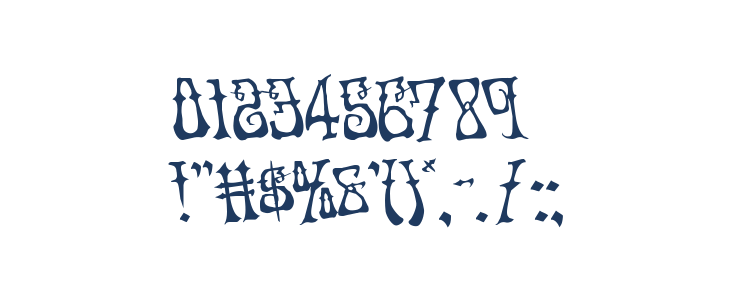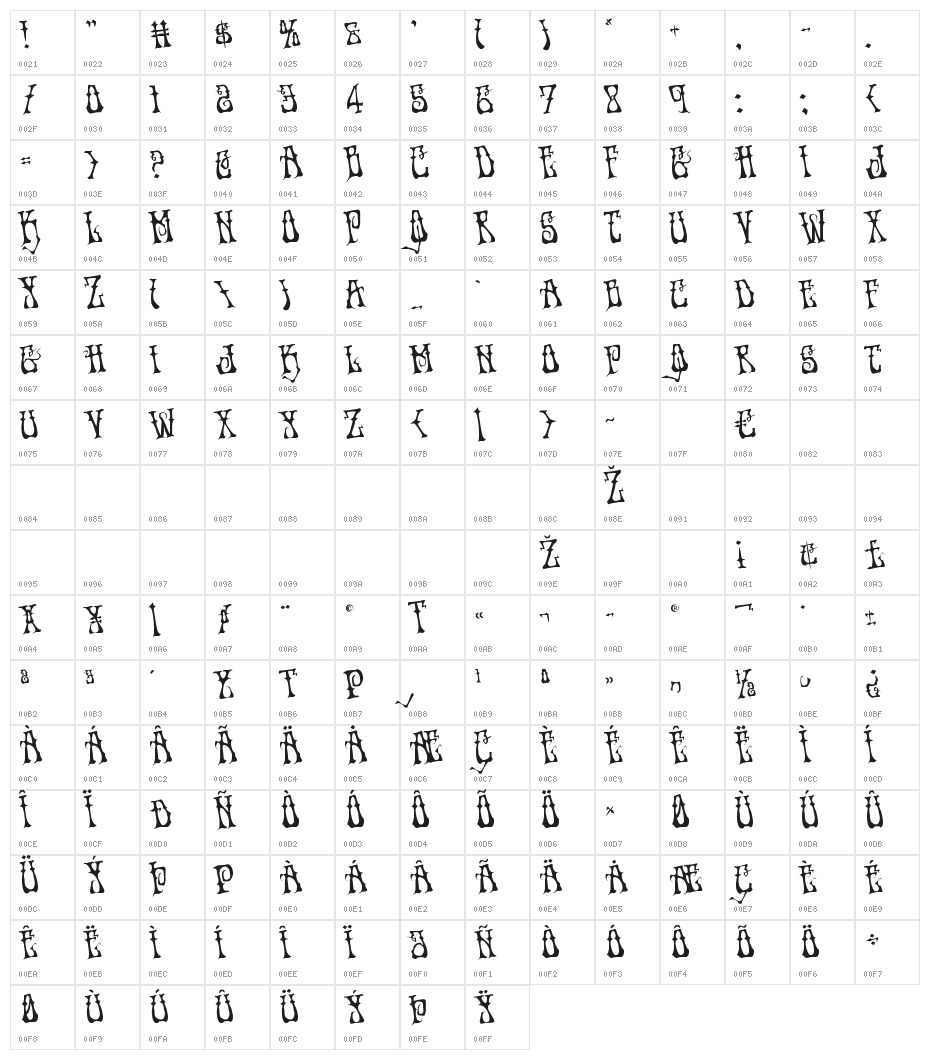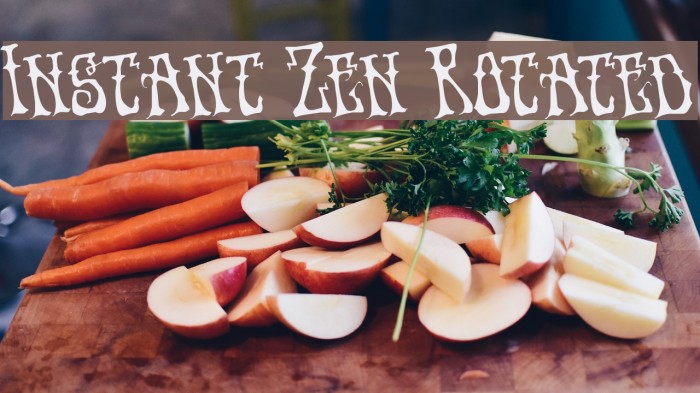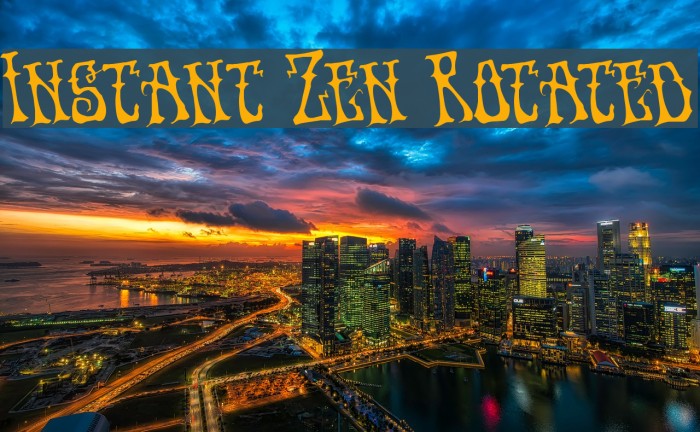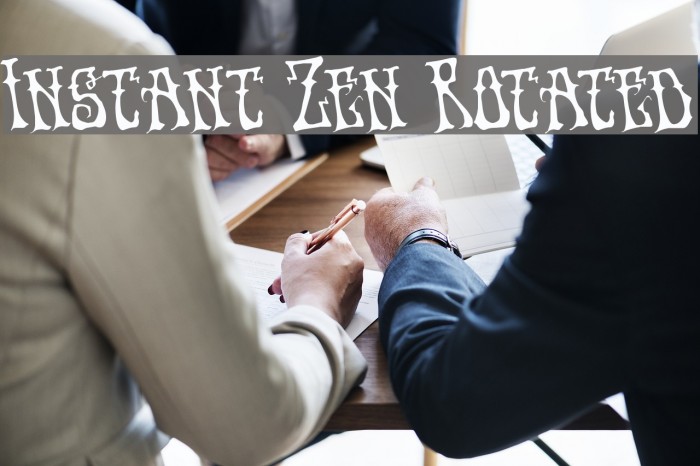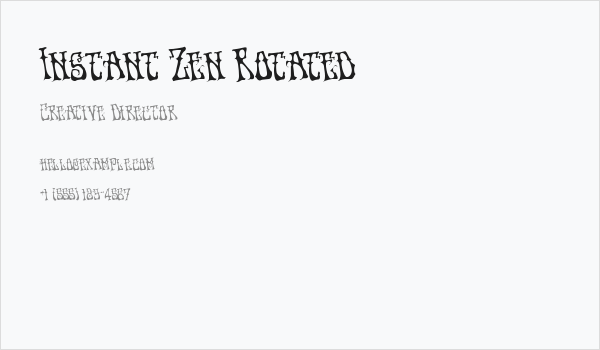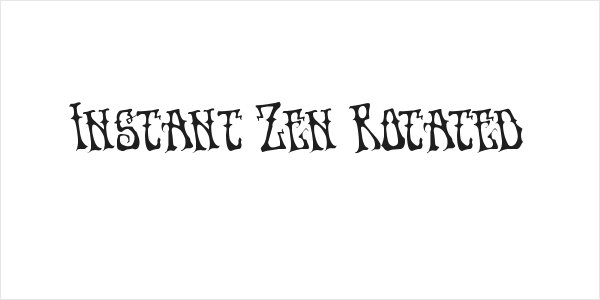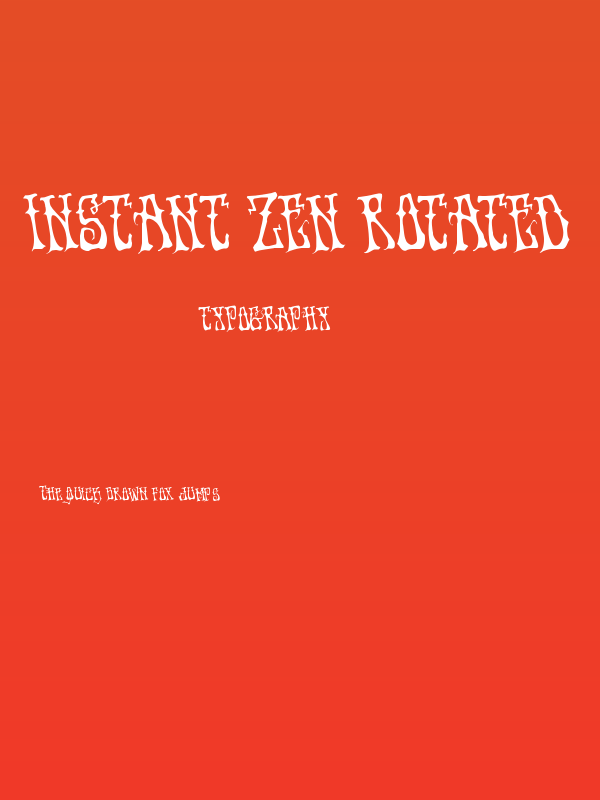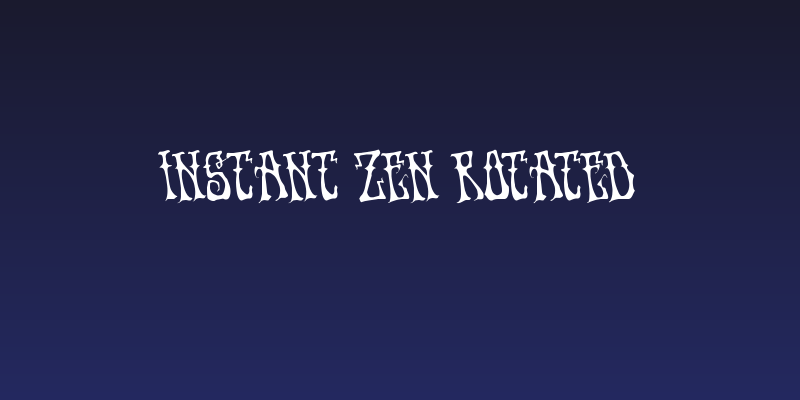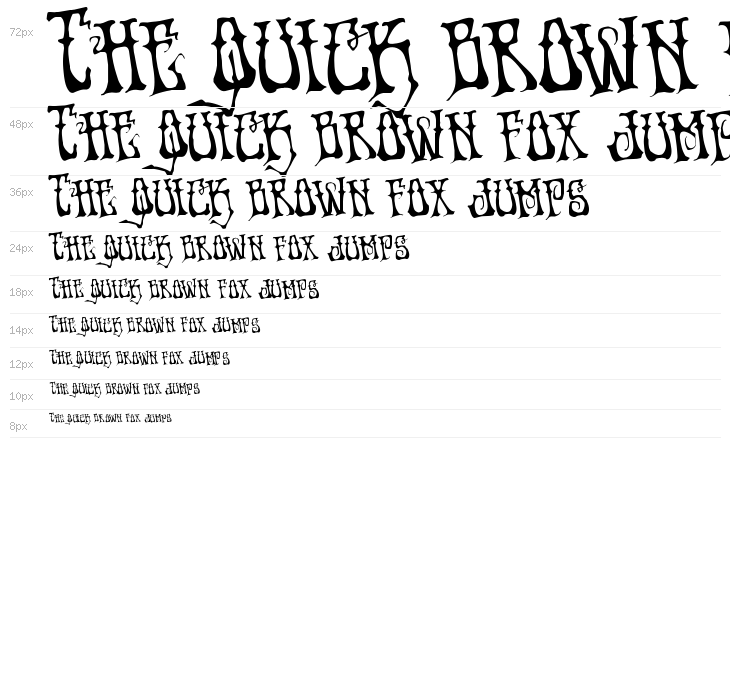
Instant Zen Rotated Font
Instant Zen Rotated Description
This font features a highly decorative and artistic style, characterized by its intricate and ornate letterforms. Each character is uniquely designed with elaborate curves and sharp edges, giving it a distinct, almost mystical appearance. The uppercase letters are particularly bold and striking, while the lowercase letters maintain the same level of detail and complexity. Numbers and special characters are equally stylized, ensuring a cohesive look across all glyphs. The overall design is reminiscent of gothic or medieval script, making it ideal for projects that require a dramatic and eye-catching typeface.
Proposed ProjectsIdeal for use in fantasy-themed designs, book covers, posters, or any project requiring a dramatic and artistic typeface.